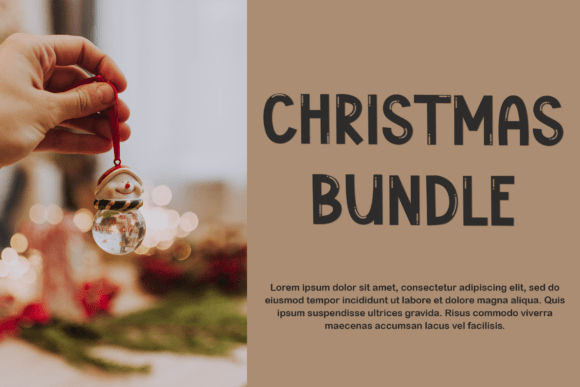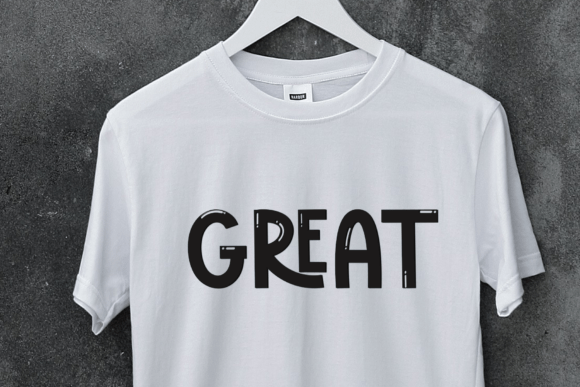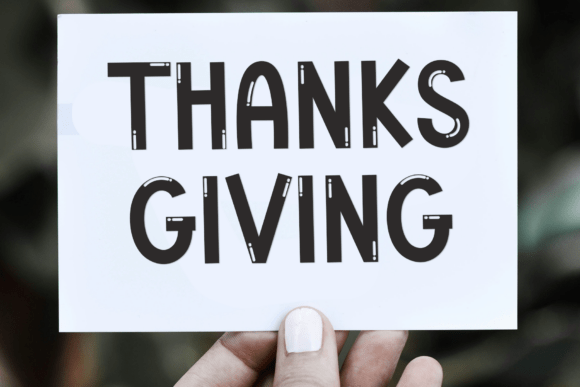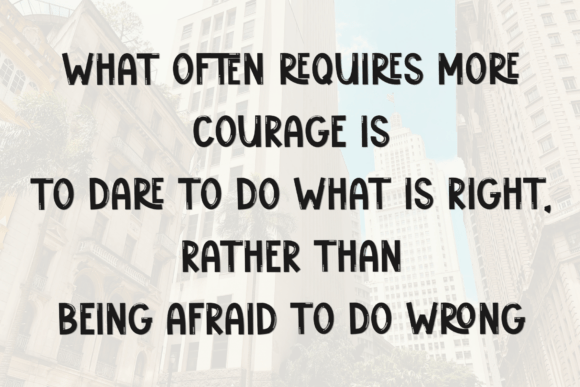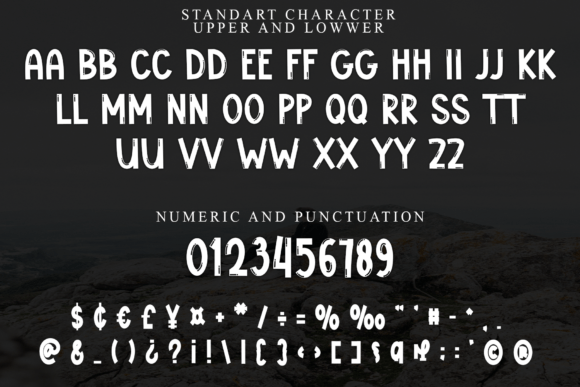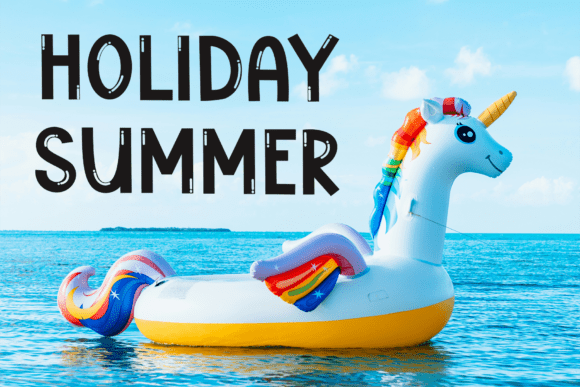
Introduction to Pro Create Font
Pro Create is a sweet and friendly handwritten font.
Key Features of Pro Create Font
Why Choose Pro Create Font?
Pro Create Font offers exceptional quality and versatility, making it a valuable addition to your design toolkit. Whether you’re creating for personal projects or commercial use, Pro Create Font delivers professional results.